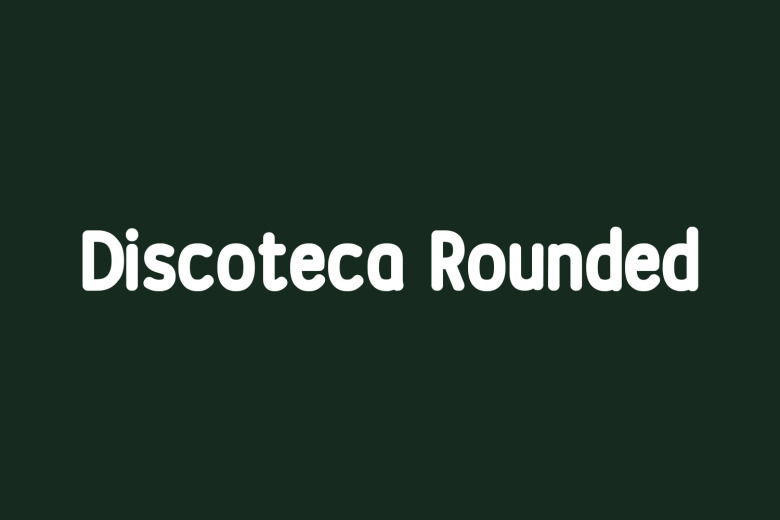
Discoteca Rounded Font
Discoteca Rounded is a high quality Sans Serif font that is designed by HENRIavecunK and is available for free download and personal use. The free version provides all uppercase and lowercase letters and a few special characters too.